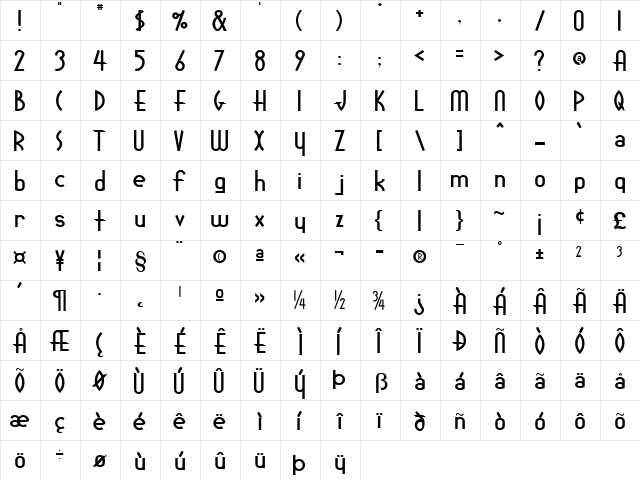
LauraMc Crary
| Style | Crary |
Design Context for LauraMc Typeface
LauraMc is a composed and adaptable typeface that performs quietly and consistently across a wide range of design contexts.